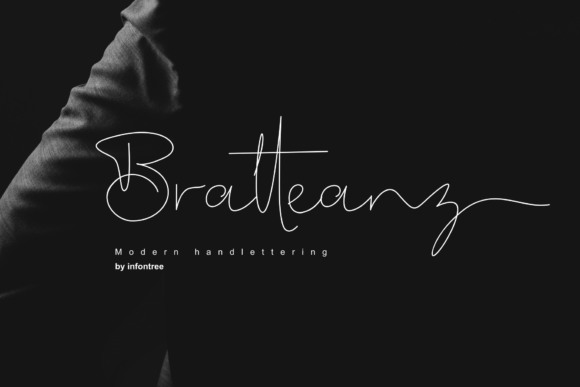
The Elegant Bratteanz Font: A Designer’s New Best Friend
I’ll never forget the time I was working on a project for a high-end fashion brand, and I just couldn’t seem to find the right font to match their sleek and sophisticated vibe. I scoured the internet, tried out dozens of fonts, but nothing seemed quite right. That was until I stumbled upon Bratteanz Font. ✨
This thin lettered and delicate script font has been a game-changer for me, and I’m excited to share its beauty with you. Bratteanz was crafted for those who need a beautiful and refreshing look to their designs, and I can confidently say it’s delivered.
- ✨ Elegant and classy design that’s perfect for high-end projects
- 💫 Highly versatile and can be used for a variety of design projects, from fashion to wedding invites
- 🎉 Beautifully crafted with attention to detail
While Bratteanz Font is an amazing addition to any design project, there are a few things to keep in mind. 🤔
- ⚠️ Some users may find the font a bit too delicate for certain projects, so it’s essential to test it out before committing
- ⚠️ As with any script font, it may not be suitable for body text, but rather for headlines or titles
Exploring OpenType Features
One of the best things about Bratteanz Font is its OpenType features, which allow you to customize your text to a whole new level. With OpenType, you can access:
- Stylistic alternates to give your text a unique twist
- Glyphs and swashes to add a touch of elegance
- Ligatures to connect letters and create a flowing script
The Designer Inspiration Behind Bratteanz Font
While the true story behind Bratteanz Font’s creation may be unknown, it’s easy to imagine a designer sitting at their desk, pouring over sketches and typography books, trying to create the perfect elegant script font. Perhaps they were inspired by the flowing lines of handwritten calligraphy or the sophistication of high-end fashion brands. Whatever the inspiration, Bratteanz Font is a beautiful addition to any design project.
| Font Name | Bratteanz Font |
| Author | Infontree |
Q: What is Bratteanz Font?
A: Bratteanz Font is a thin lettered and delicate script font designed for high-end projects and those who need a beautiful and refreshing look.